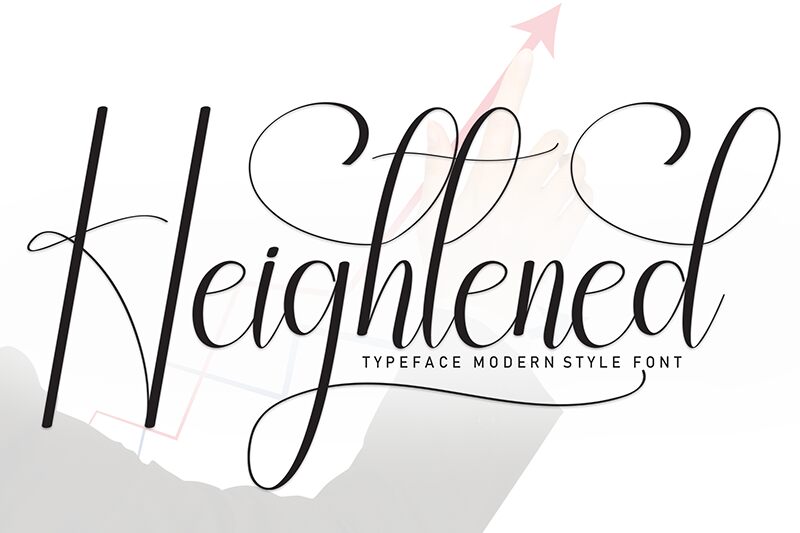
Heightened
Heightened font by Scratchones is a free calligraphy script typeface with sky-high strokes and whisper-thin hairlines that feel like they were brushed in a single, confident motion. Its tall, sweeping forms and fluid connections create a sense of drama without losing legibility, giving every word an elegant, handwritten flair that feels polished rather than fussy. The letters seem to float, leaving plenty of airy white space that keeps even long names or phrases looking light and refined.
Using Heightened, this free font shines on wedding invitations, save-the-date cards, boutique logos, luxury packaging, quote prints, social media graphics, and personal stationery. The flowing rhythm and elongated curves instantly add romance and formality, turning simple text into a keepsake. Pair this script with a clean geometric sans in small caps for dates, taglines, or supporting details to keep layouts balanced and easy to read.